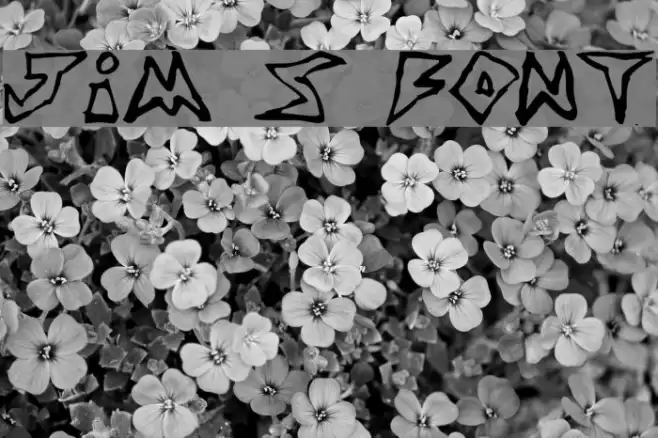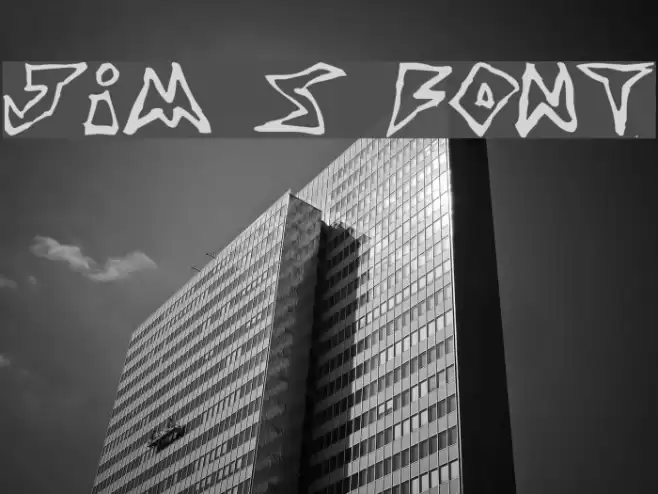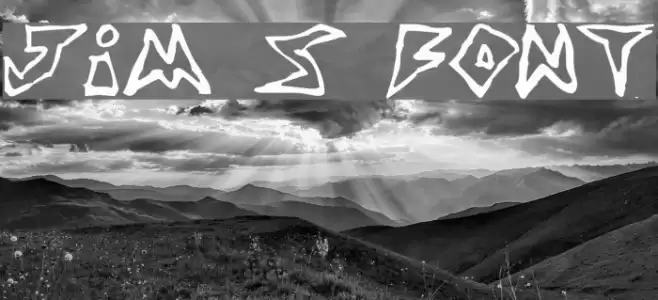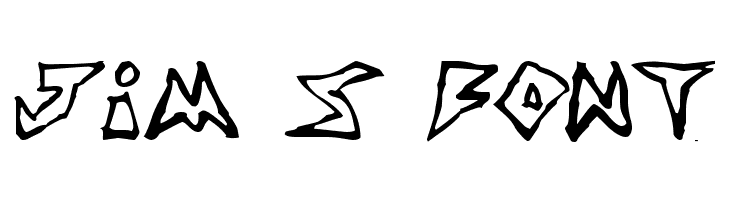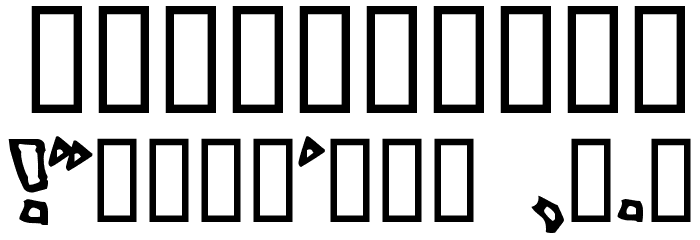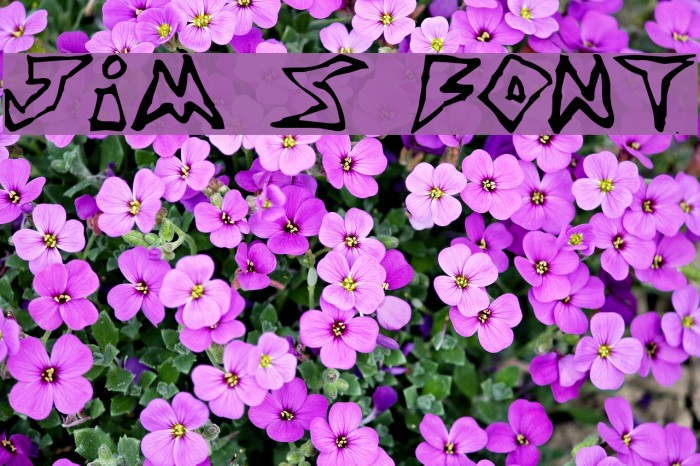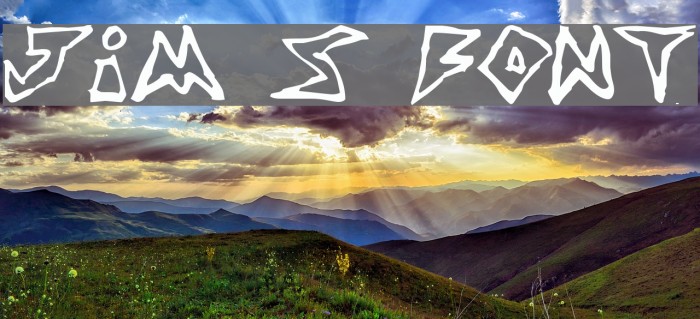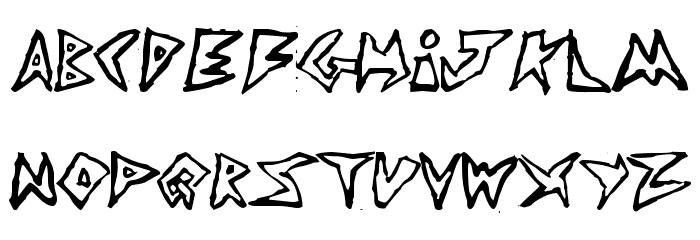
Jim s Font Font
Jim s Font Description
This font features a bold, jagged design with sharp, angular edges that give it a dynamic and edgy appearance. The uppercase and lowercase letters maintain a consistent style, characterized by irregular strokes and a sense of movement. The numbers and special characters follow the same aesthetic, making the font cohesive throughout. Its unique style is reminiscent of graffiti or street art, making it stand out with its rebellious and energetic vibe. The font's distinctiveness makes it suitable for projects that require a bold statement or an unconventional look.
A bold, jagged font with sharp, angular edges and a dynamic, edgy style from Outline fonts.
- Proposed Projects: Ideal for album covers, posters, streetwear branding, or any project needing a bold, rebellious aesthetic.
- Overall Style: Modern, Edgy